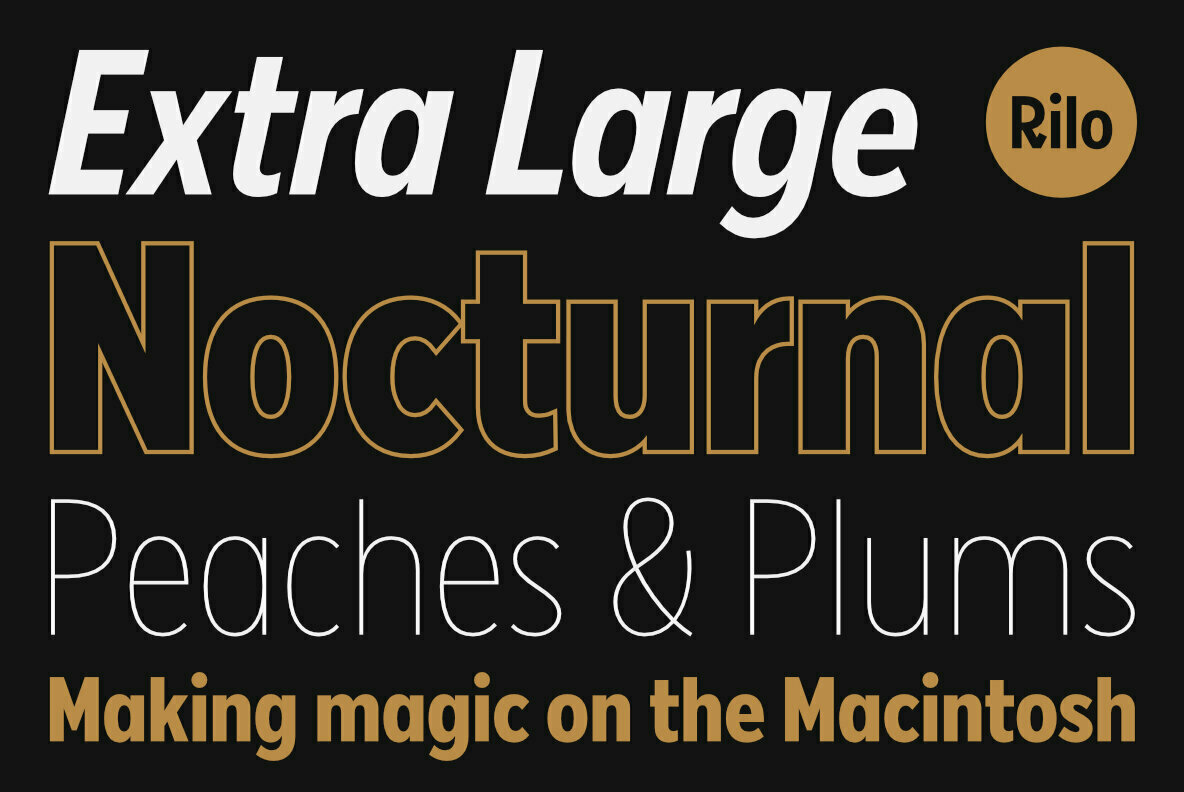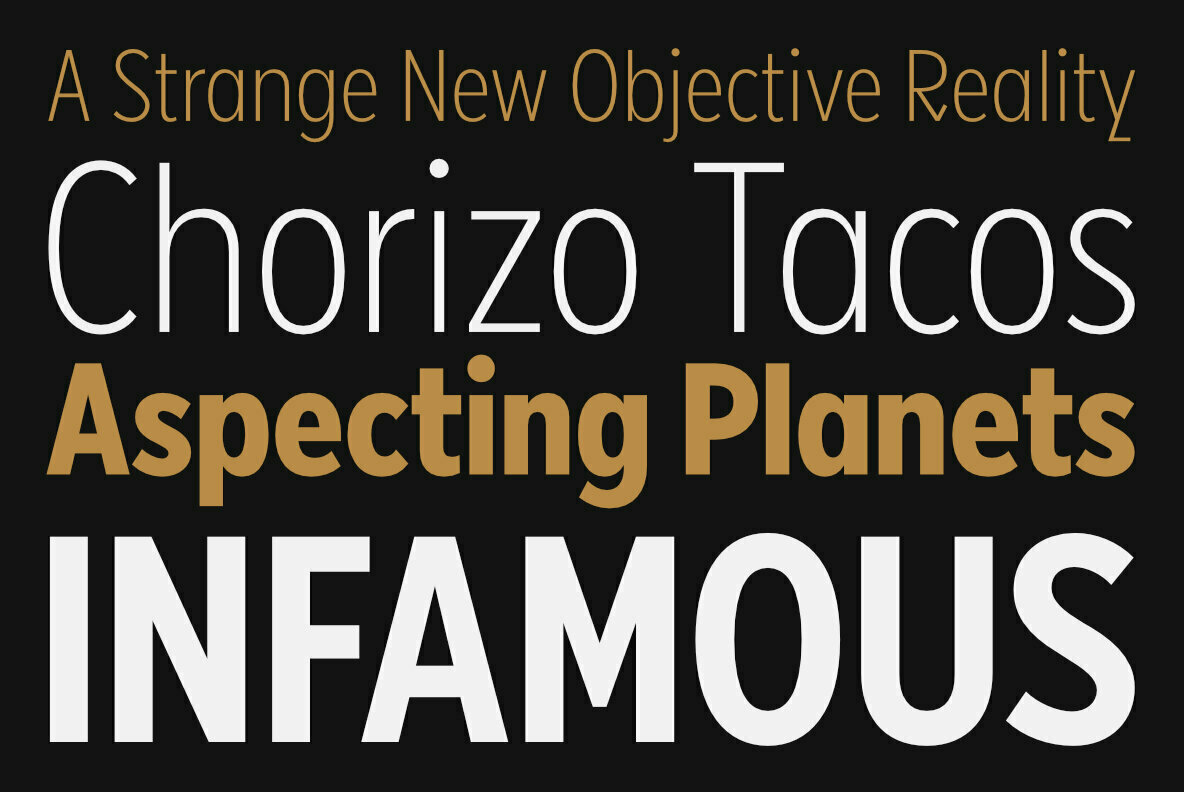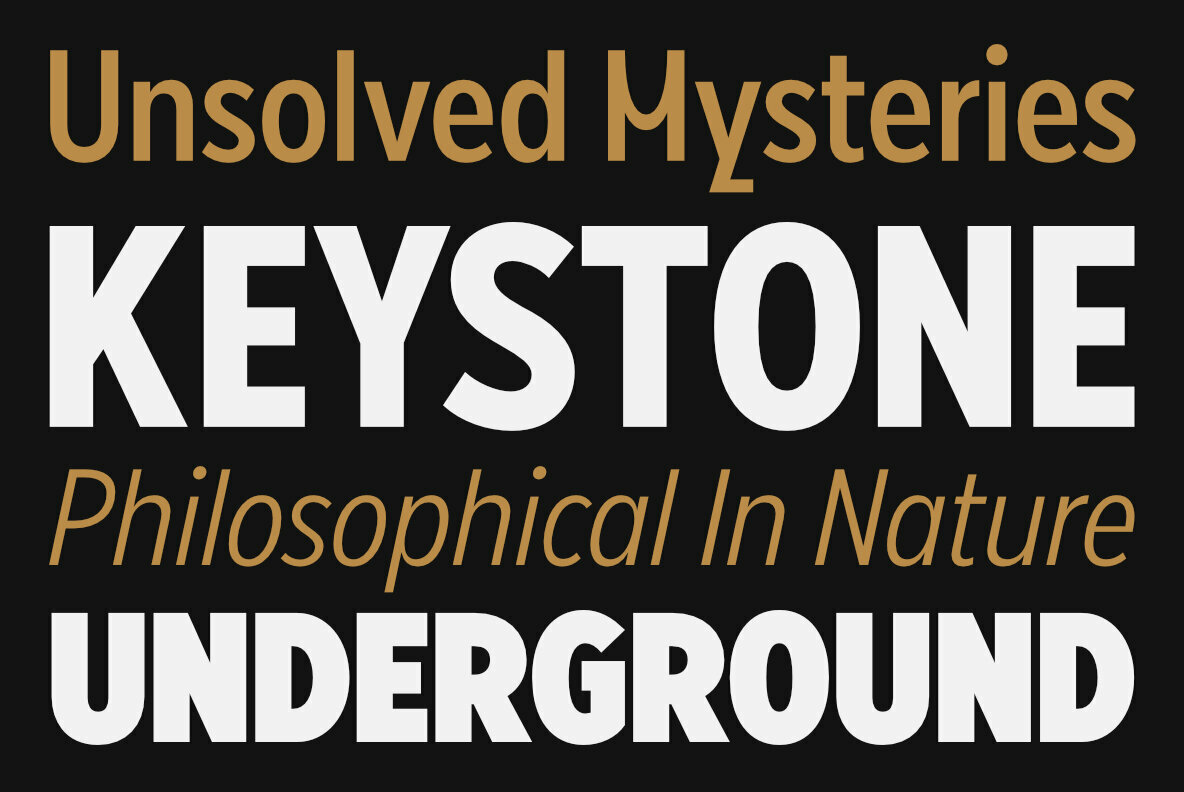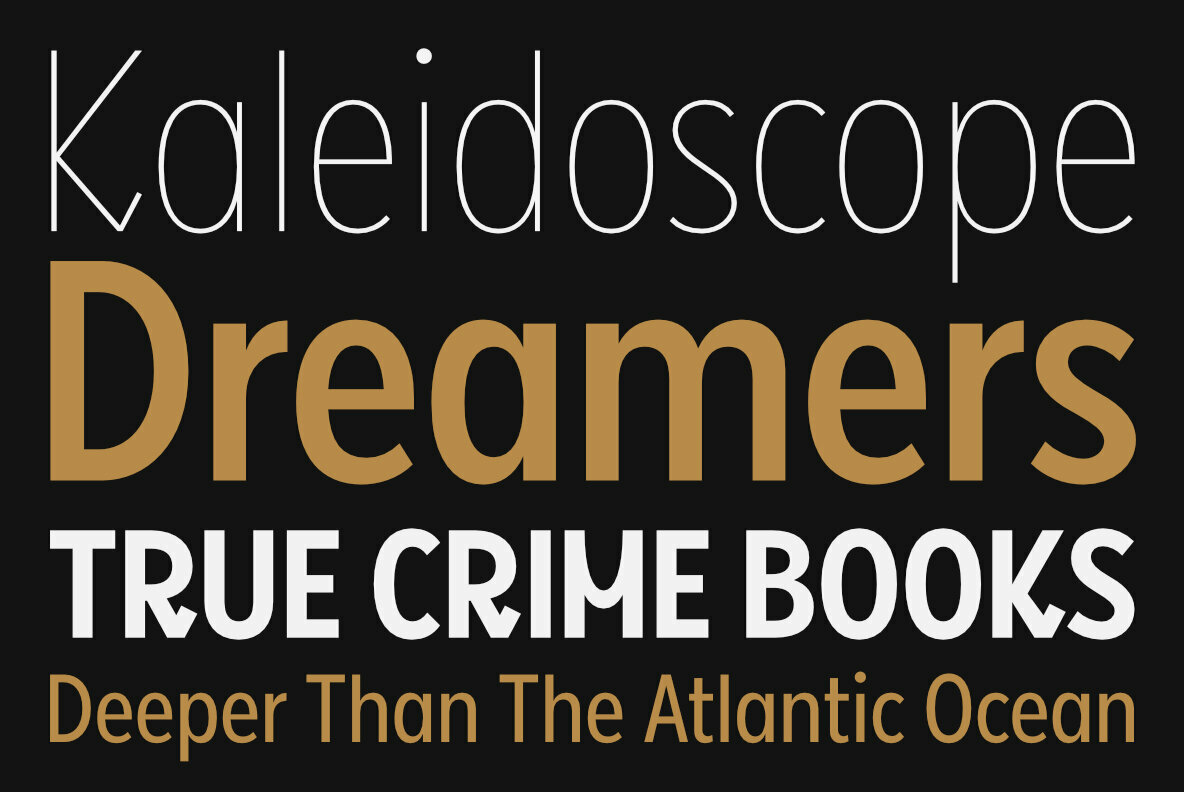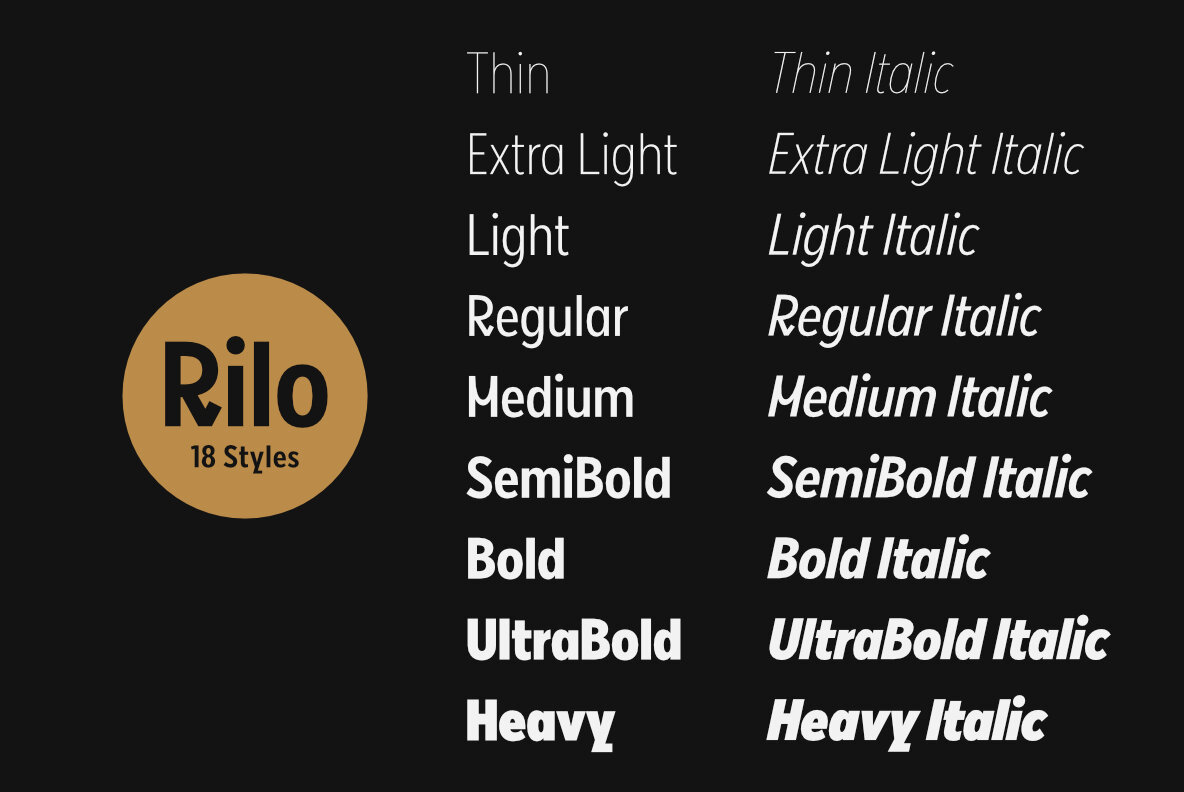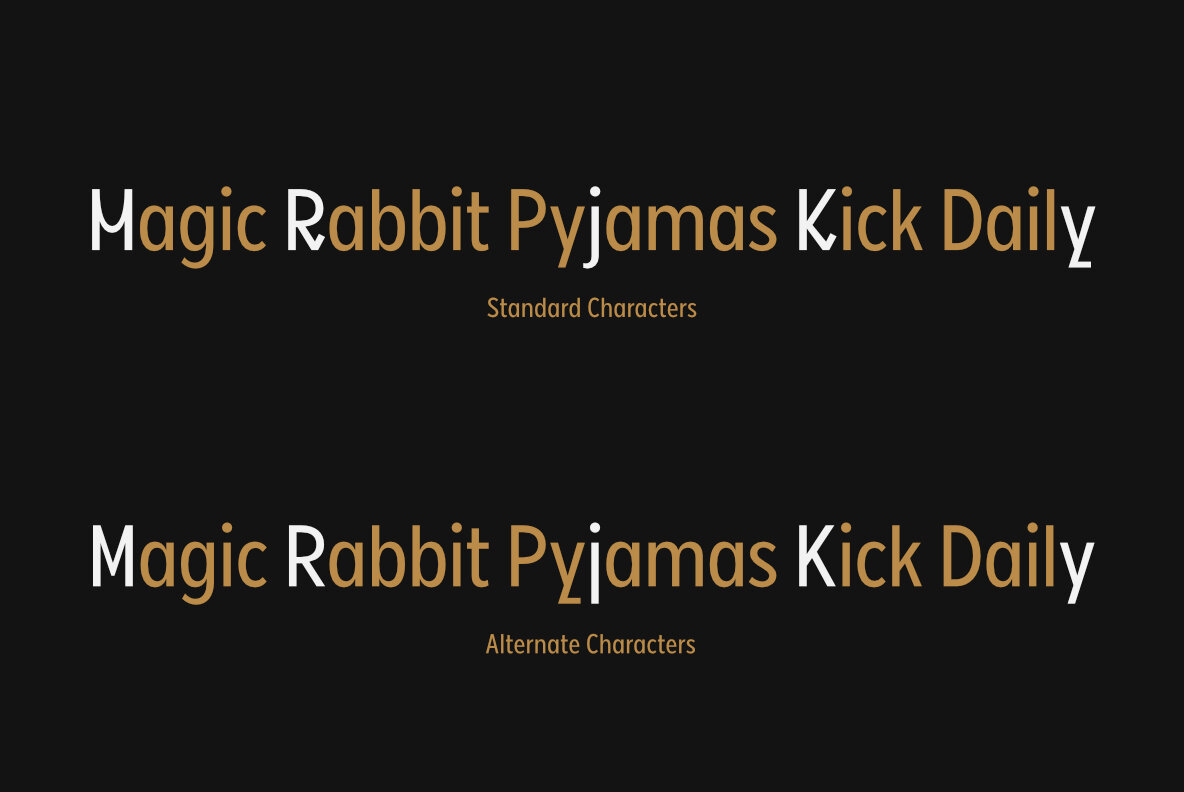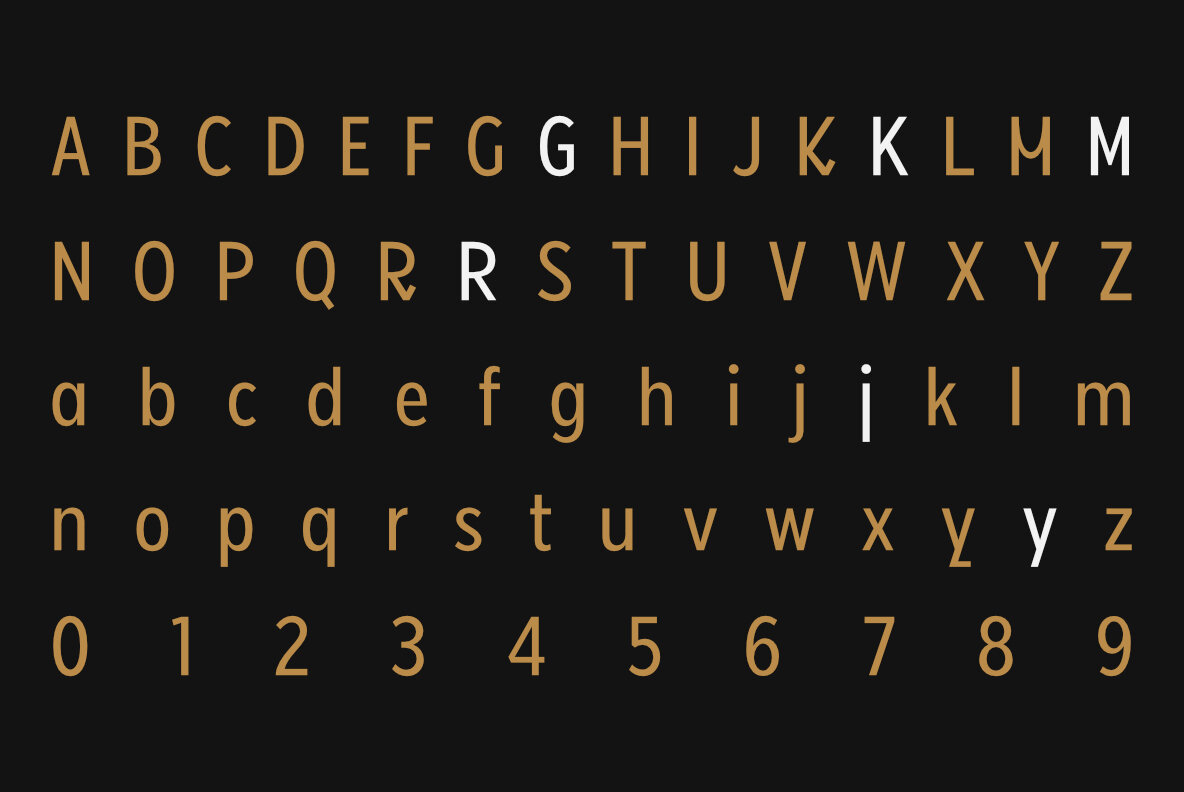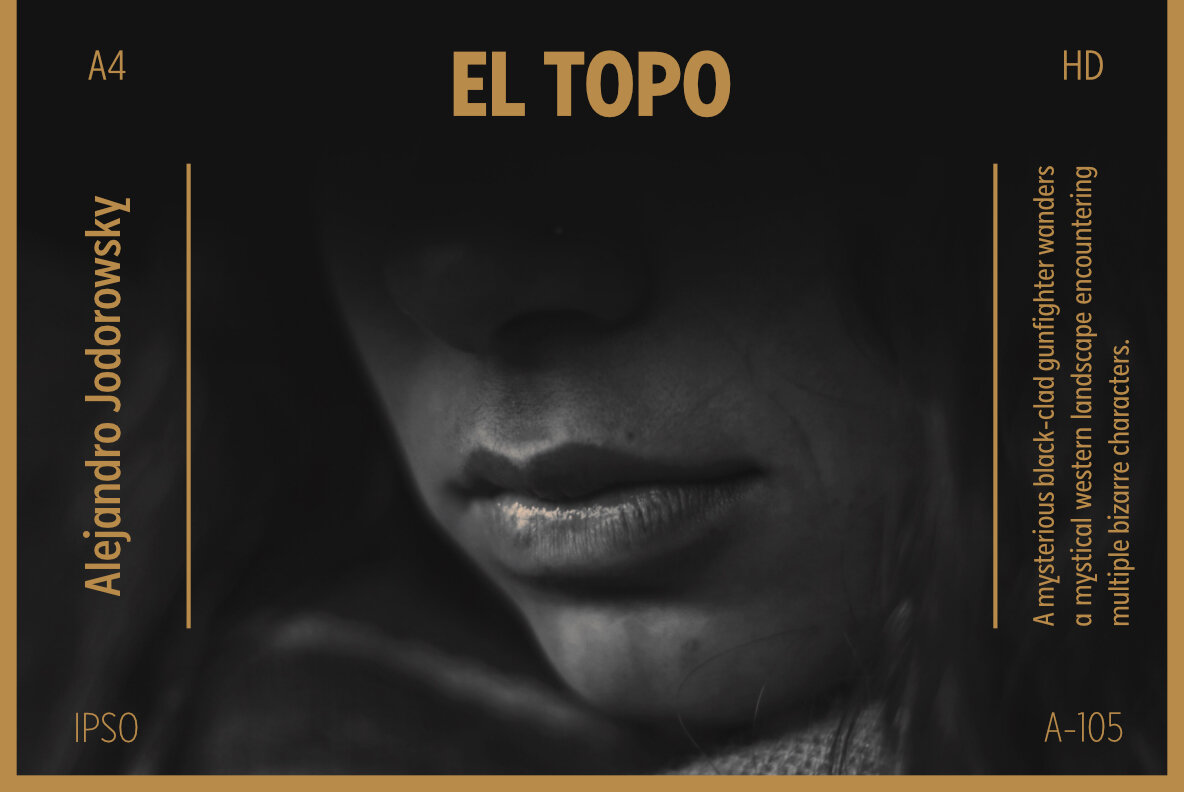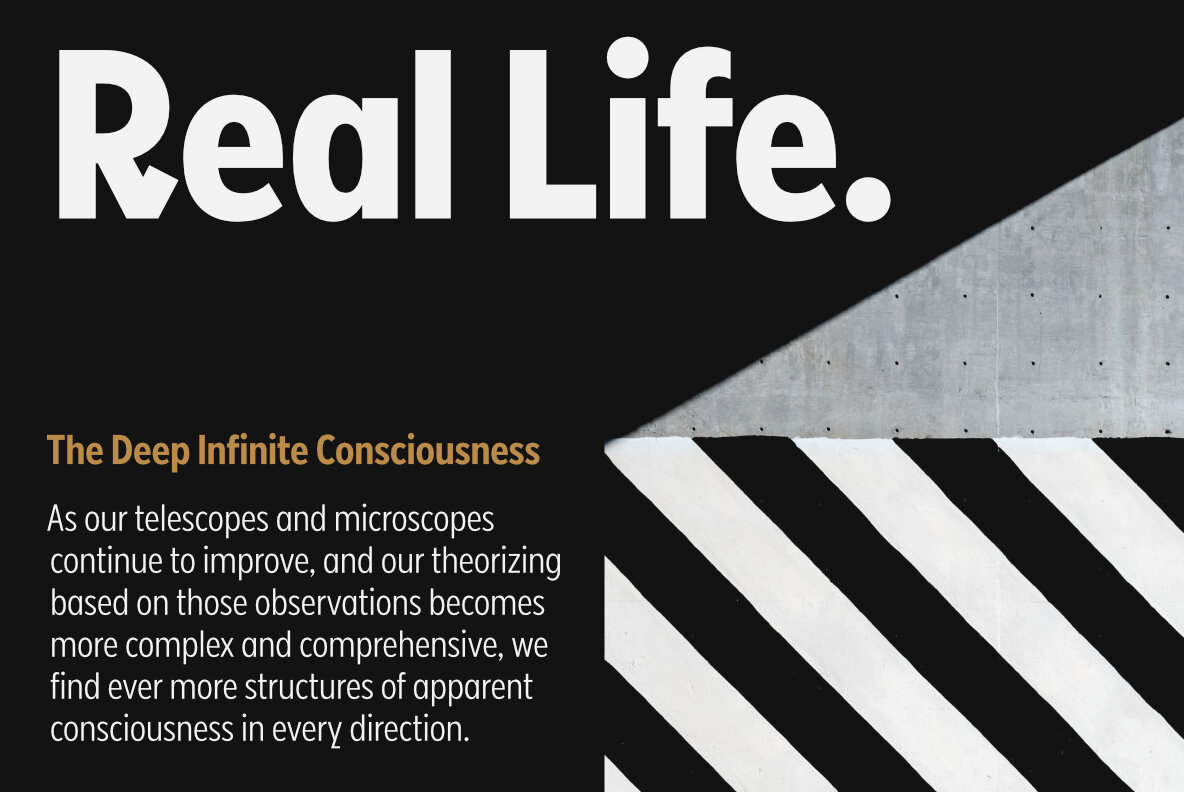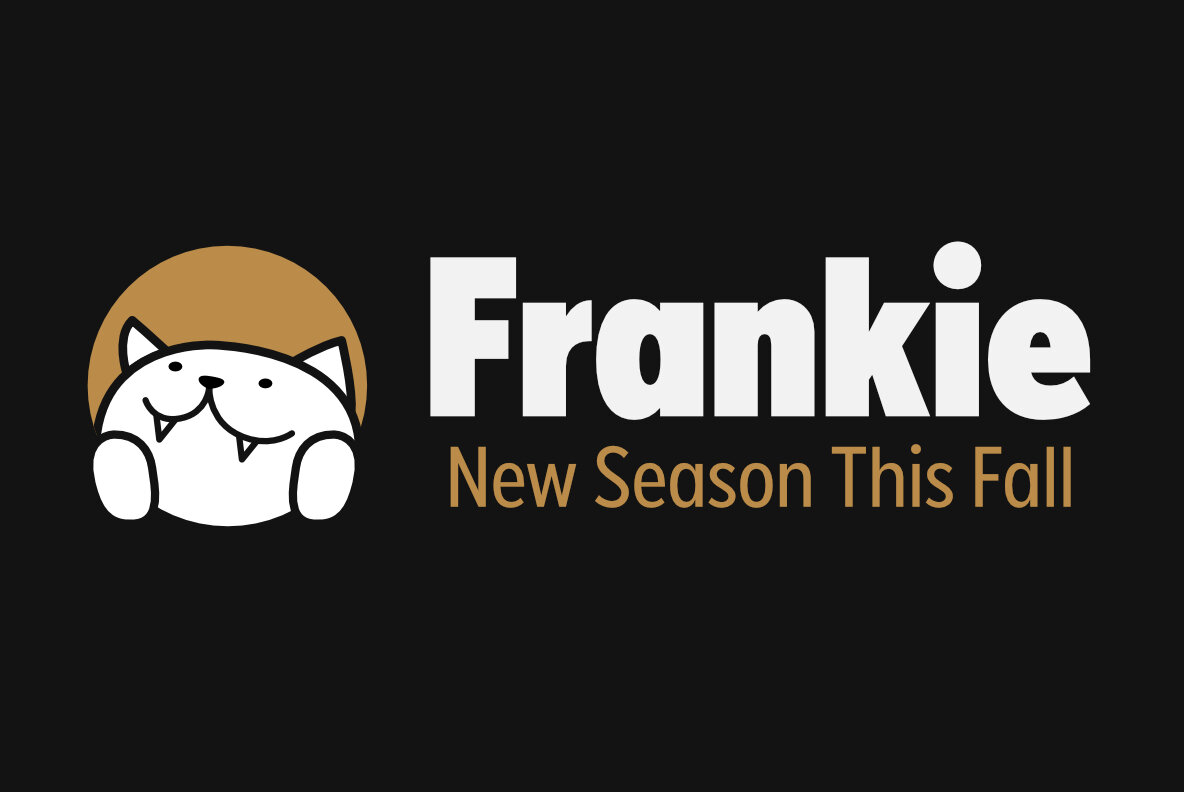
Rilo 1
Rilo is a clean 18 style semi-condensed sans-serif with 9 weights + Italics. This unique OpenType typeface has a handful of unique glyphs with conservative stylistic alternatives.